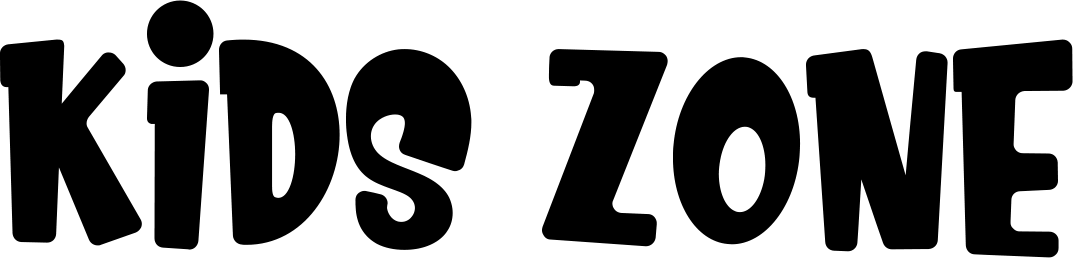
Comic Queens Font
This font is a comic font called Comic Queens with two simple bold styles that you can choose from. It will make your text look playful and urgent. You can use it for any branding logo, comic books, friendly texts, movie titles, and cartoon headlines. Comic Queens is an all-caps font.